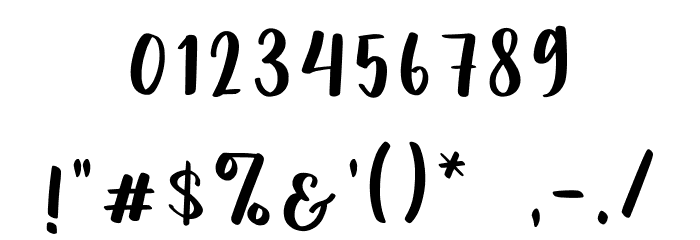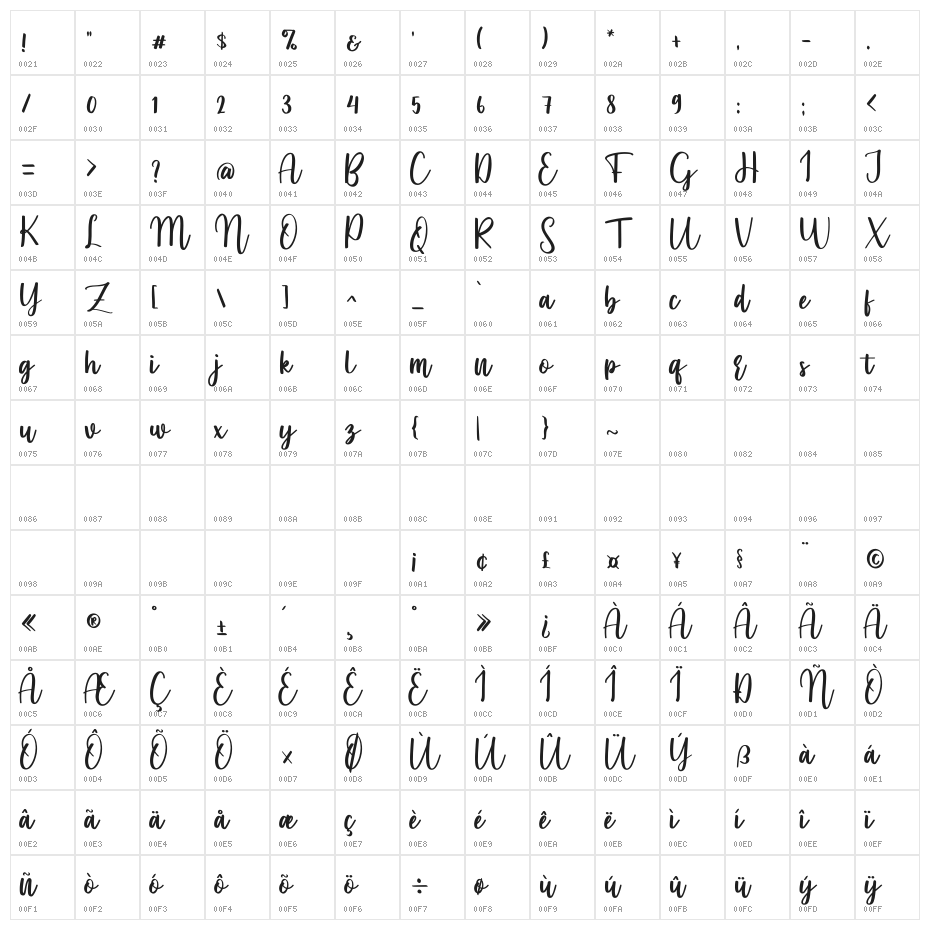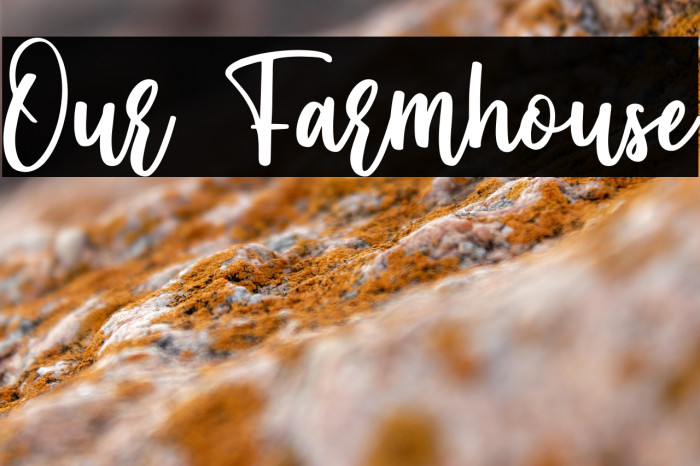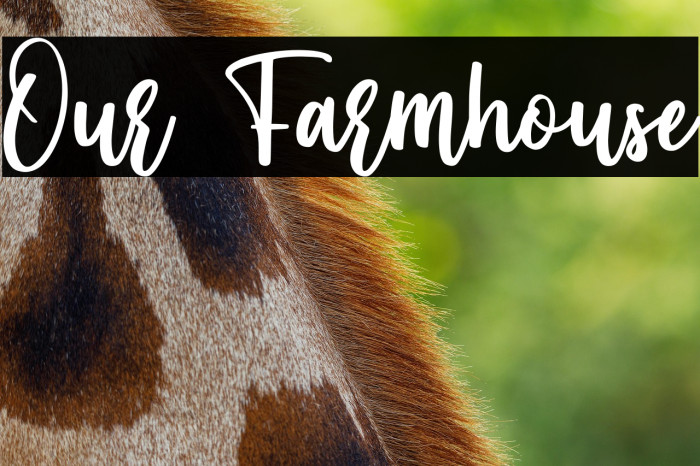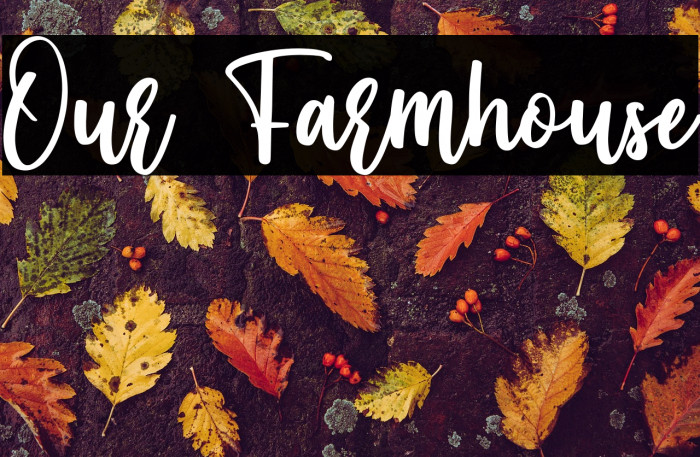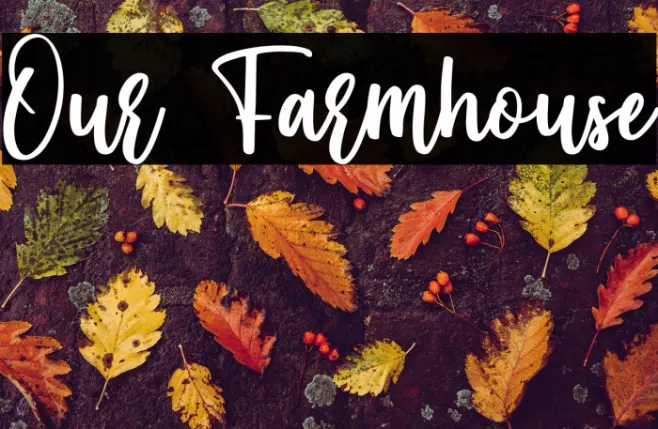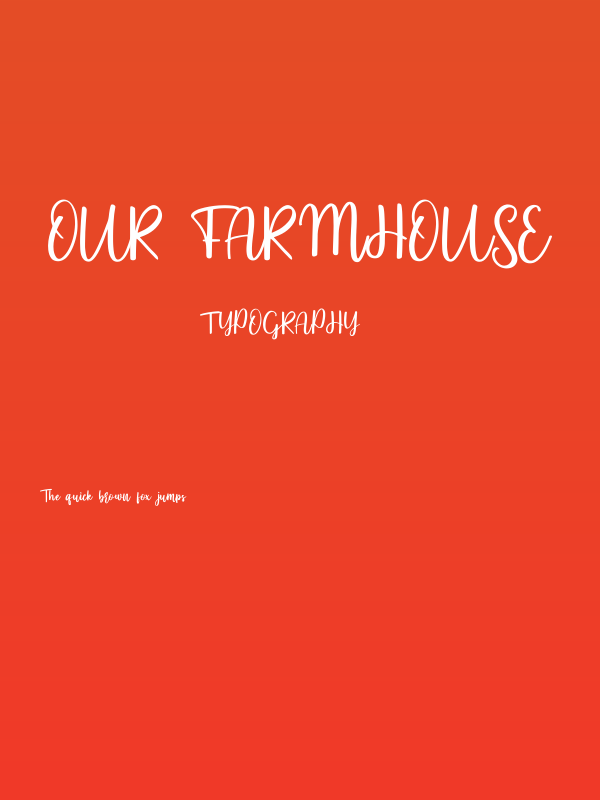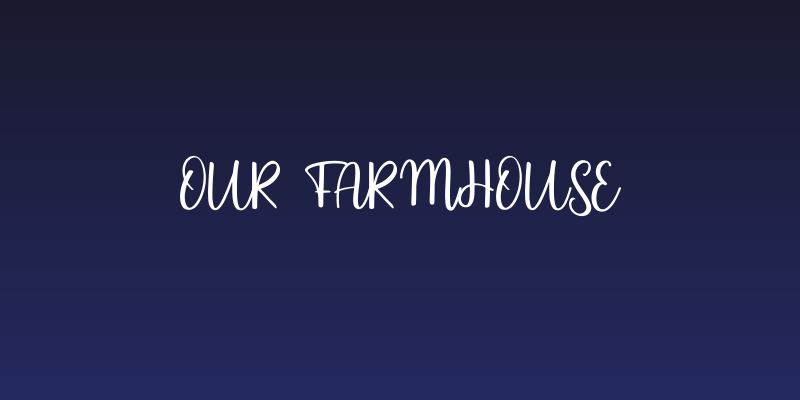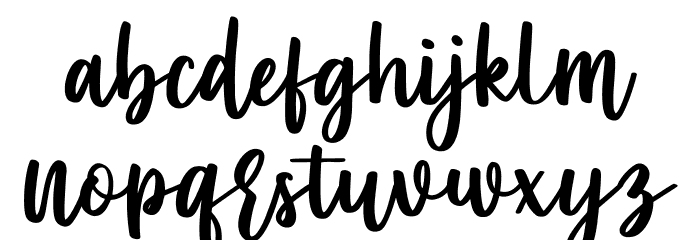
Our Farmhouse Font
Our Farmhouse Description
This font exudes a charming, handwritten style with a playful and casual feel. The characters are fluid and connected, giving it a natural, flowing appearance. The uppercase letters are slightly more structured, while the lowercase letters maintain a consistent, smooth curve. The numbers and special characters follow the same style, ensuring a cohesive look throughout. The strokes are bold and confident, providing good readability while maintaining an artistic flair. This font is perfect for projects that require a personal touch, such as invitations, greeting cards, or branding materials that aim to convey warmth and friendliness.
| Proposed Projects | Ideal for invitations, greeting cards, branding materials, and any project needing a personal touch. |